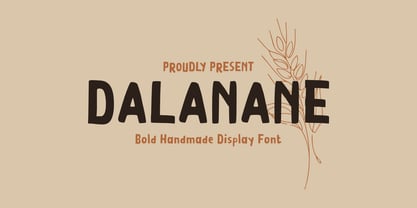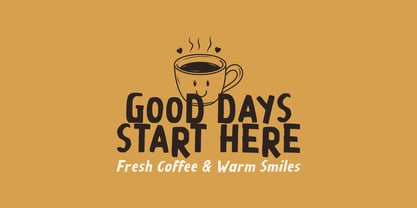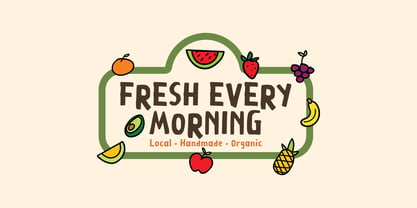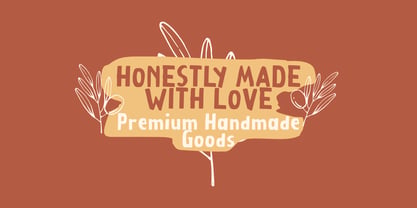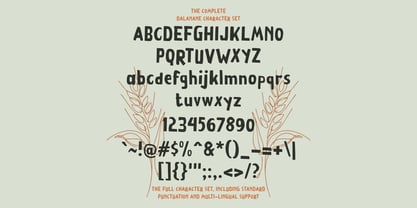
Dalanane
by Mei Suseno
The Dalanane Font Family was designed by Wahyu Eka Prasetya, Mei Suseno and published by Mei Suseno. Dalanane contains 2 styles and family package options. More about this family
DALANANE is a playful handmade display font crafted with bold, organic letterforms and a warm handcrafted personality. Its imperfect curves and friendly style make it perfect for logos, branding, packaging, children's products, posters, book covers, café menus, apparel, social media graphics, greeting cards, and creative craft projects. Designed to bring a fun, natural, and authentic vintage touch, DALANANE stands out beautifully in both print and digital designs while remaining highly readable and full of character
Designers: Wahyu Eka Prasetya, Mei Suseno
Foundry: Mei Suseno